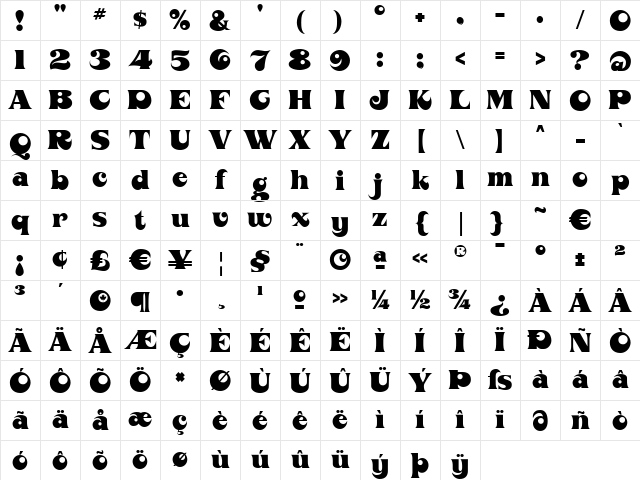
Orotund Regular
Designer: Rebecca Alaccari & Patrick Griffin
Design Context for Orotund
Orotund is a composed and adaptable typeface that performs quietly and consistently across a wide range of design contexts.